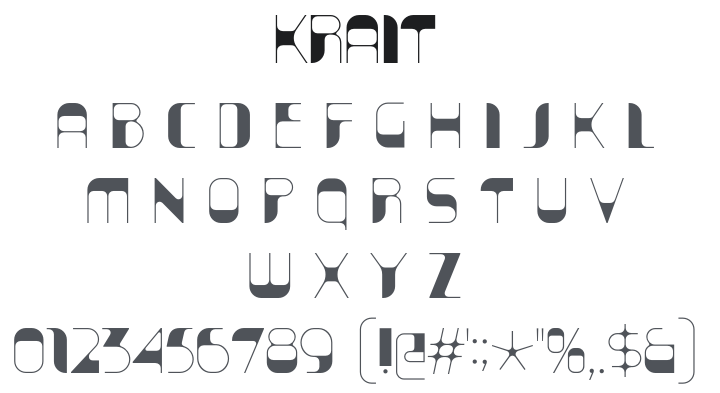
Krait Font Family
• Krait Solid-Regular
• Krait Fill-Regular
• Krait Hollow-Regular
About Krait
Krait is a sleek, layered geometric display typeface designed specifically for architectural contexts — clean, minimal letterforms with consistent stroke weights that deliberately sidestep Art Deco thick-thin clichés. Its three layerable styles allow inventive offset and colour-fill combinations. Perfect for building signage, architectural branding, upscale interior design graphics, modern editorial headlines, and any project demanding refined, contemporary minimalism.